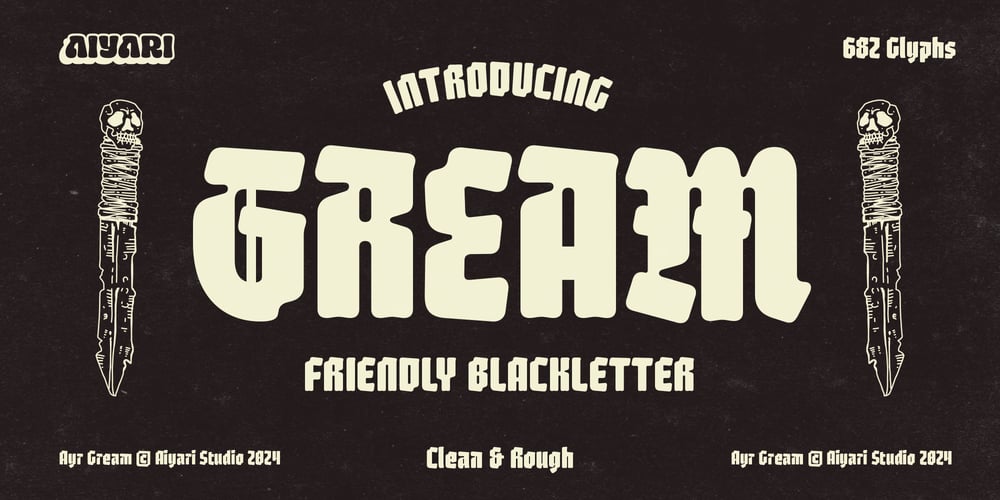
Ayr Gream Font Family was designed by Ricky Rinaldi and published by Aiyari. Ayr Gream contains 2 styles and family package options. Introducing Gream a combination of modernism and playfulness based on textura blackletter.Gream best uses for headings, invitation, Logo type, quotes, apparel design, flyer, poster, greeting cards, product packaging, book cover, printed quotes, cover album, movie, etc